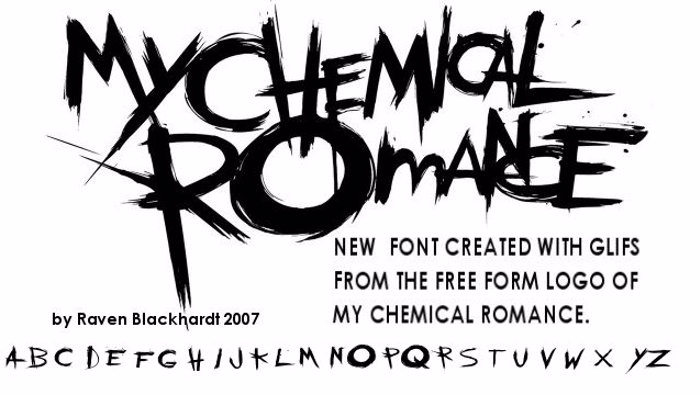
the chemical parade Font
This is a font I created using the New "My Chemical Romance" hand drawn logo and the original "we are The Black Parade" logo.
by carefully tubing each letter available in paintshop pro.
Then creating from those letters that remained unavailable, including...
F, G, J, K, P, Q, S, U, V, W(flipped M), X, & Z.
This is an all cap font. Without any numbers or special characters available.